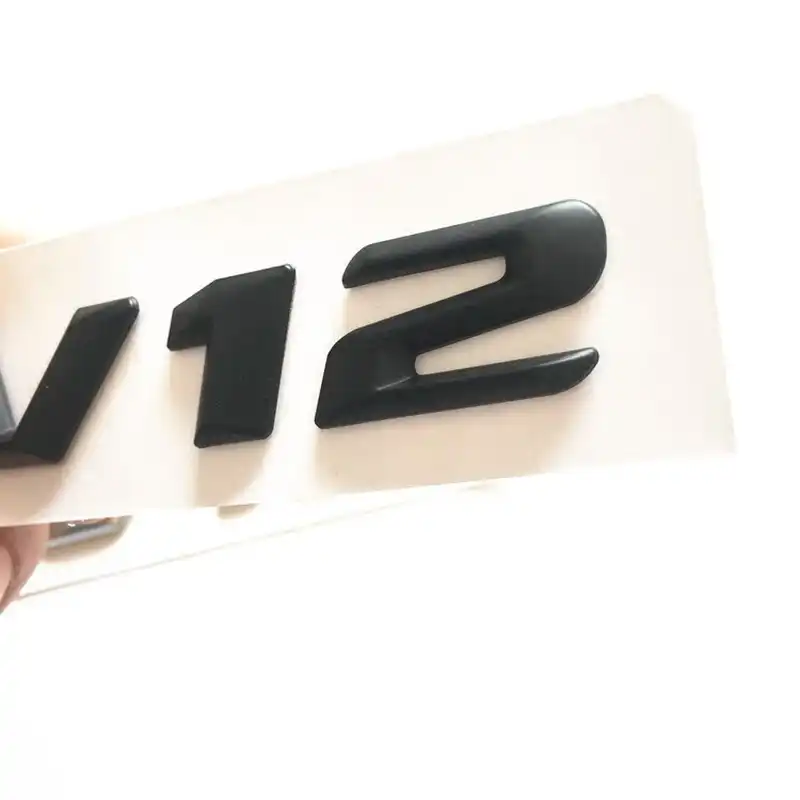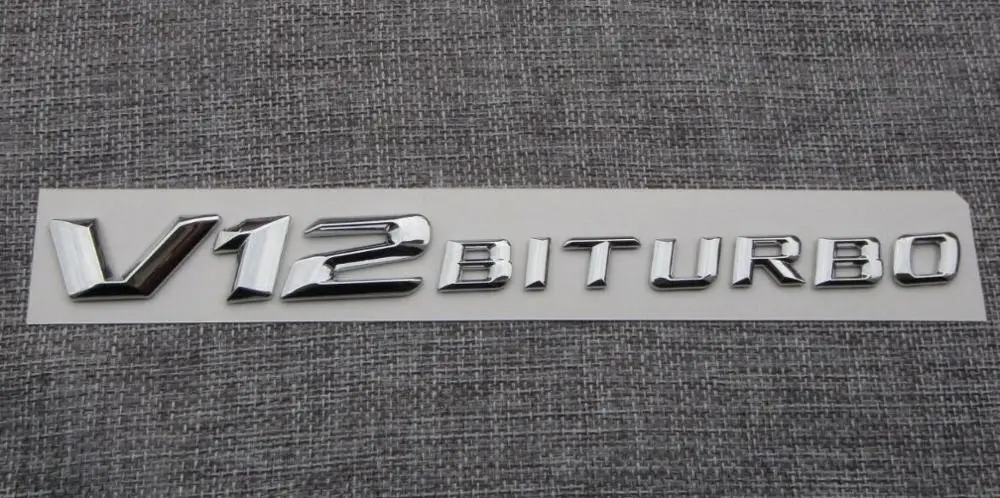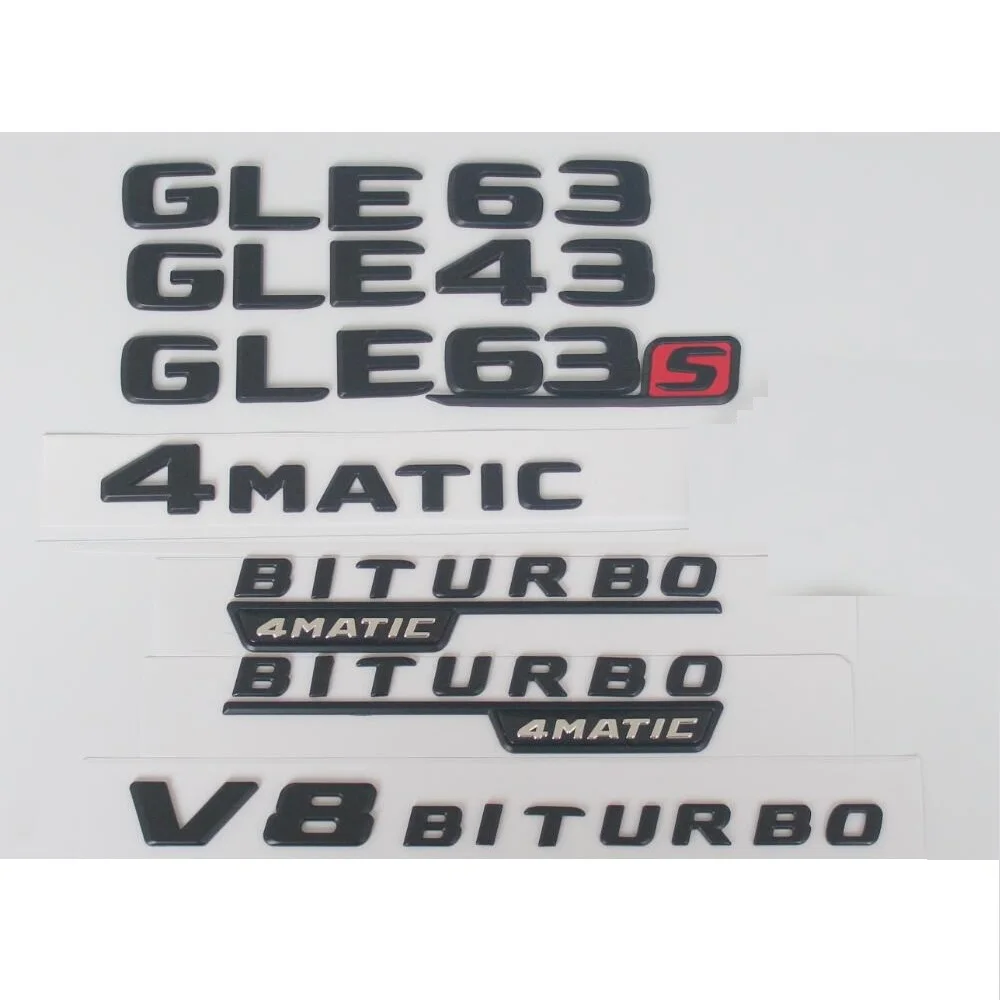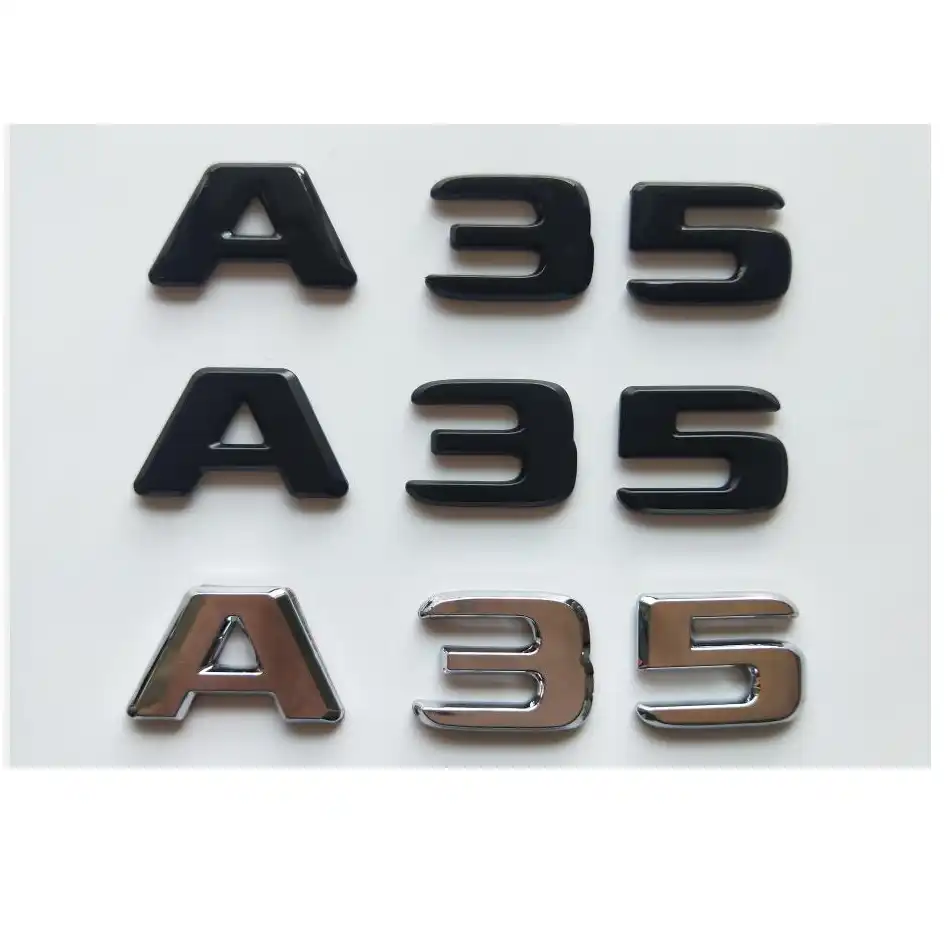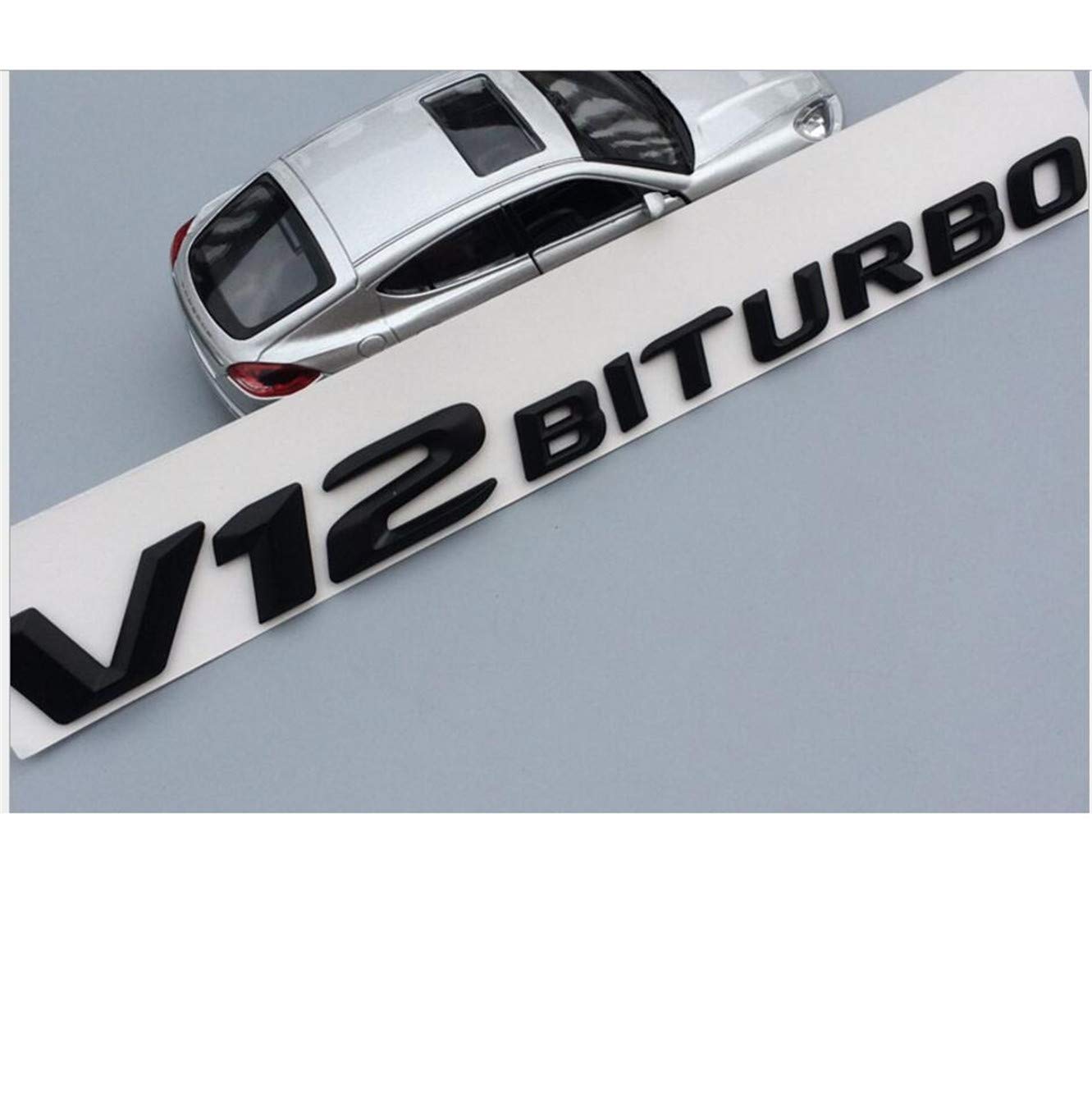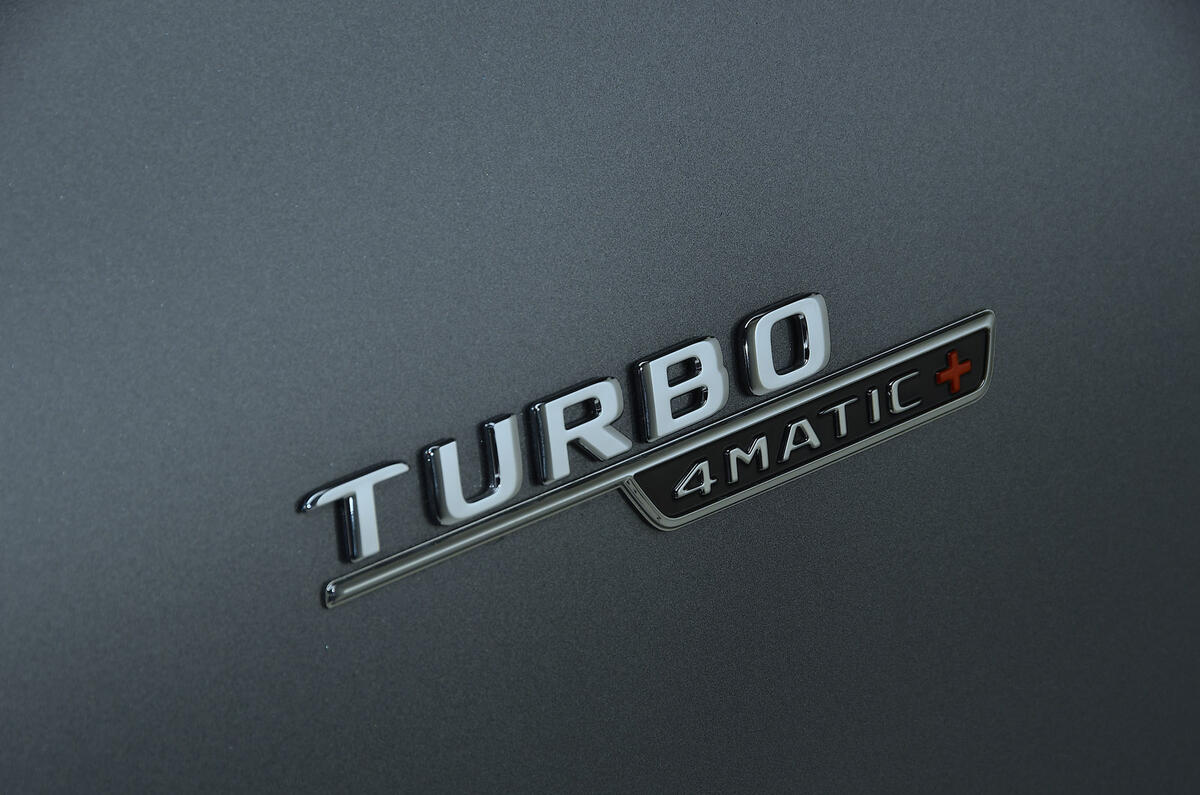
Mercedes Amg Font
Mercedes amg font. The font using in Mercedes Benz Logo is Corporate A BQ Light Font Kurt Weidemann took the charge for designing and releasing it for the first time It comes with elegant serif glyphs and special marks This textual piece looks great under the orbit enclosing a threepointed star. This is a world first The overall responsibility for the realisation of Project ONE lies with MercedesAMG The complex development work was carried out in close cooperation with the Formula 1 experts at MercedesAMG High Performance Powertrains in Brixworth and with the MercedesAMG Petronas Motorsport team in Brackley. Mercedes Benz font here refers to the font used in the logo of MercedesBenz, which is luxury automobile brand under the German manufacturer Daimler AG Mercedes Benz official font / typeface?.
The MercedesBenz logo features an orbit enclosing a threepointed star, which represents its dominance over sea, land and air Beneath the symbol is the logotype of MercedesBenz and the font used for the lettering is very similar to Corporate A BQ Light, a commercial font designed by Kurt Weidemann The font is available for purchase here. E2 CDi & A170CDi I think the combination of letters on AMG are not from a single font, there is an EPS (Encapsulated PostScript) version of it here It looks to be a combination of a few different fonts (possibly Monolith or FlatIron) MB's own corporate typeface for stationery is Corporate S (and A). 14 CLA 45 AMG // Calcite White // Black RedCut Options Premium Package w/ Panoramic Roof / AMG Exclusive Package / AMG Night Package / AMG MultiSpoke Matte Black 19's / AMG Performance Exhaust / Parktronic / Media Interface / designo Red Seat Belts Order Date March, 13 // Production Date January th, 14 // Delivery Date Wednesday, March 19, 14!.